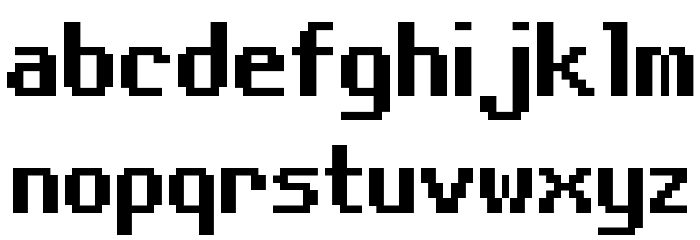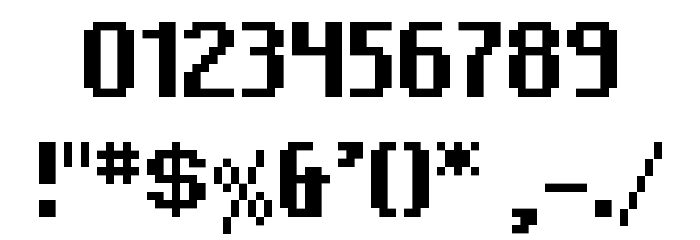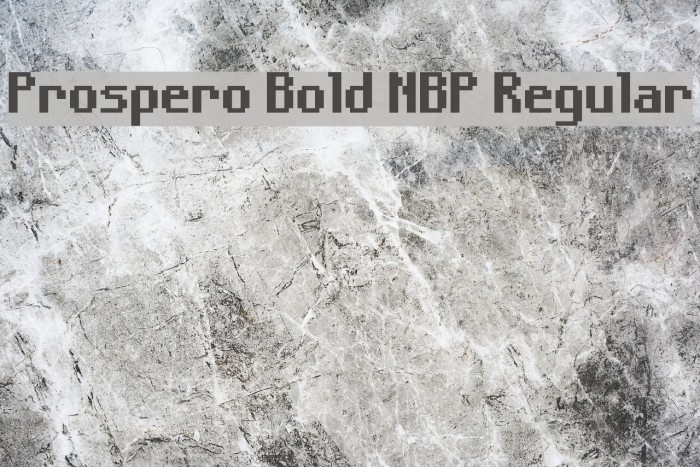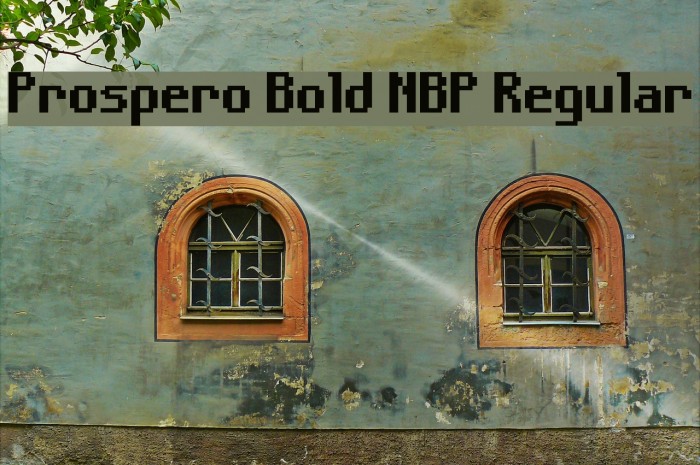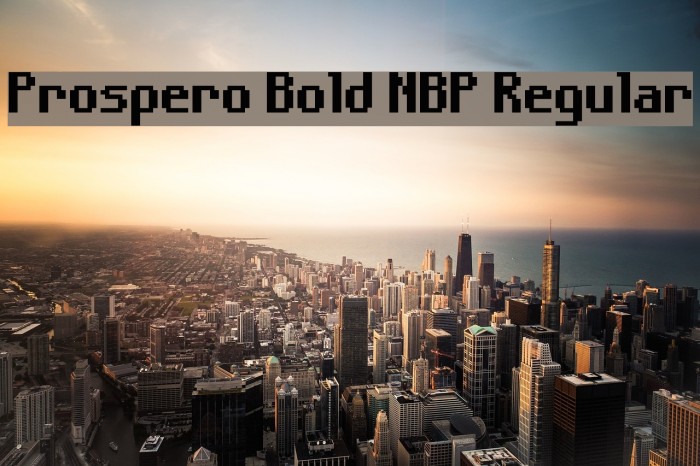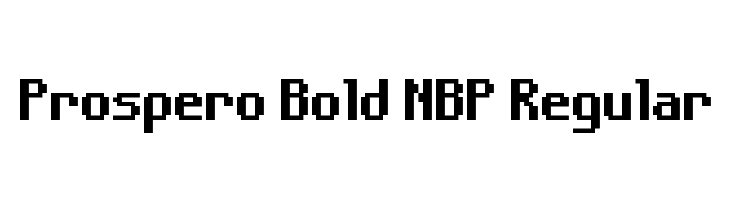
Prospero Bold NBP Regular Font
This font features a bold, pixelated style reminiscent of classic video game graphics. Each character is composed of blocky, square shapes that give it a distinctly digital appearance. The uppercase and lowercase letters maintain a consistent height, contributing to a uniform and cohesive look. The numerals and special characters follow the same pixelated design, ensuring a seamless integration across all text elements. This font's retro aesthetic is both nostalgic and modern, making it a versatile choice for a variety of design projects.
A bold, pixelated font with a retro digital style.
- Proposed Projects: Ideal for video game design, retro-themed posters, digital art projects, and any creative work seeking a nostalgic, pixelated look.
- Overall Style: Retro, Digital